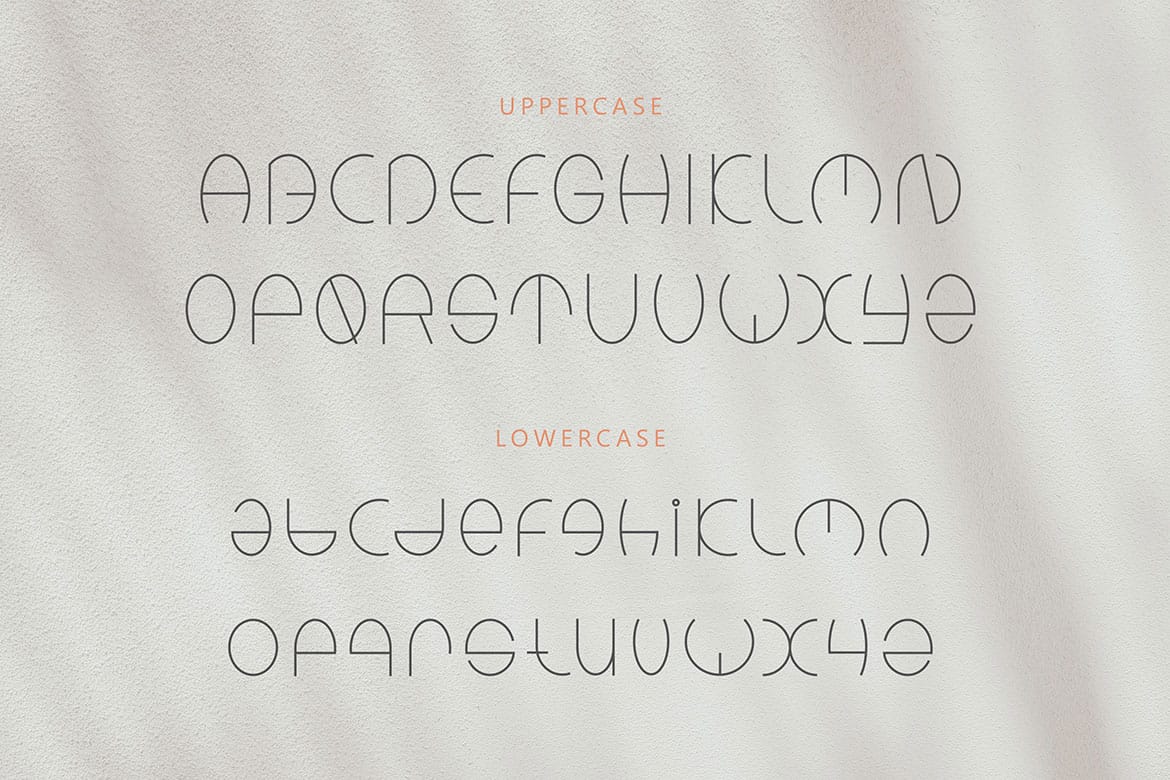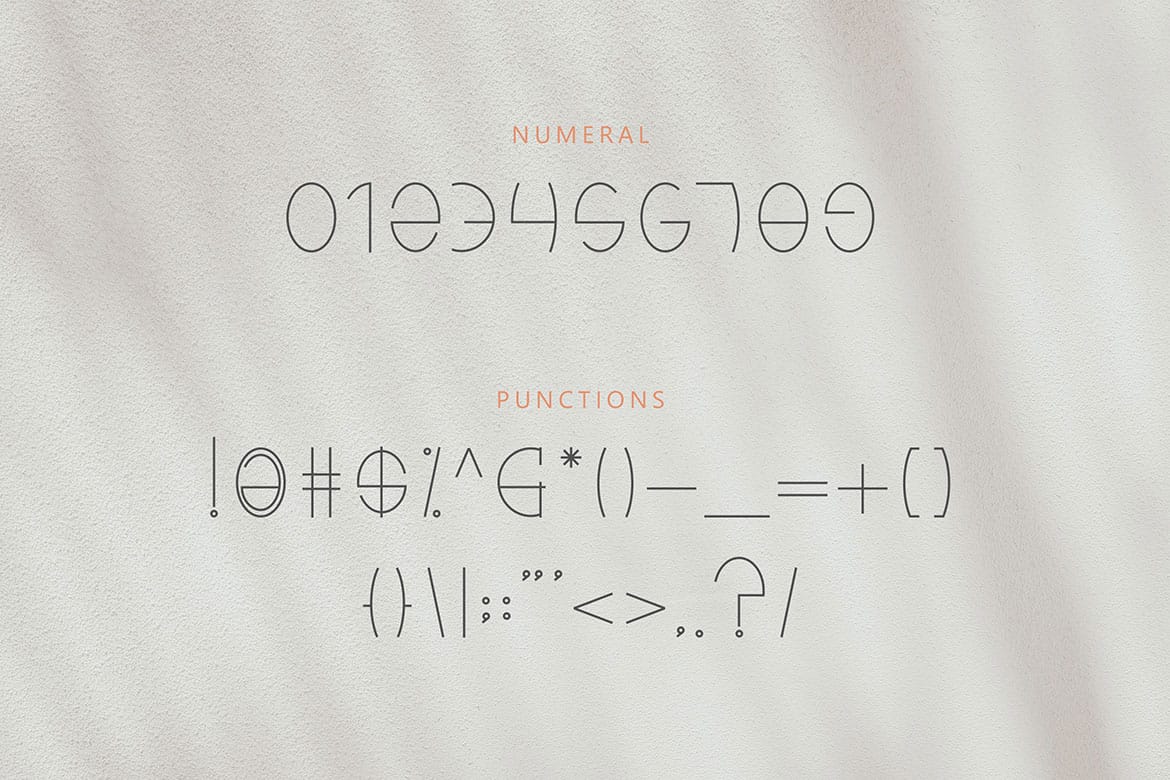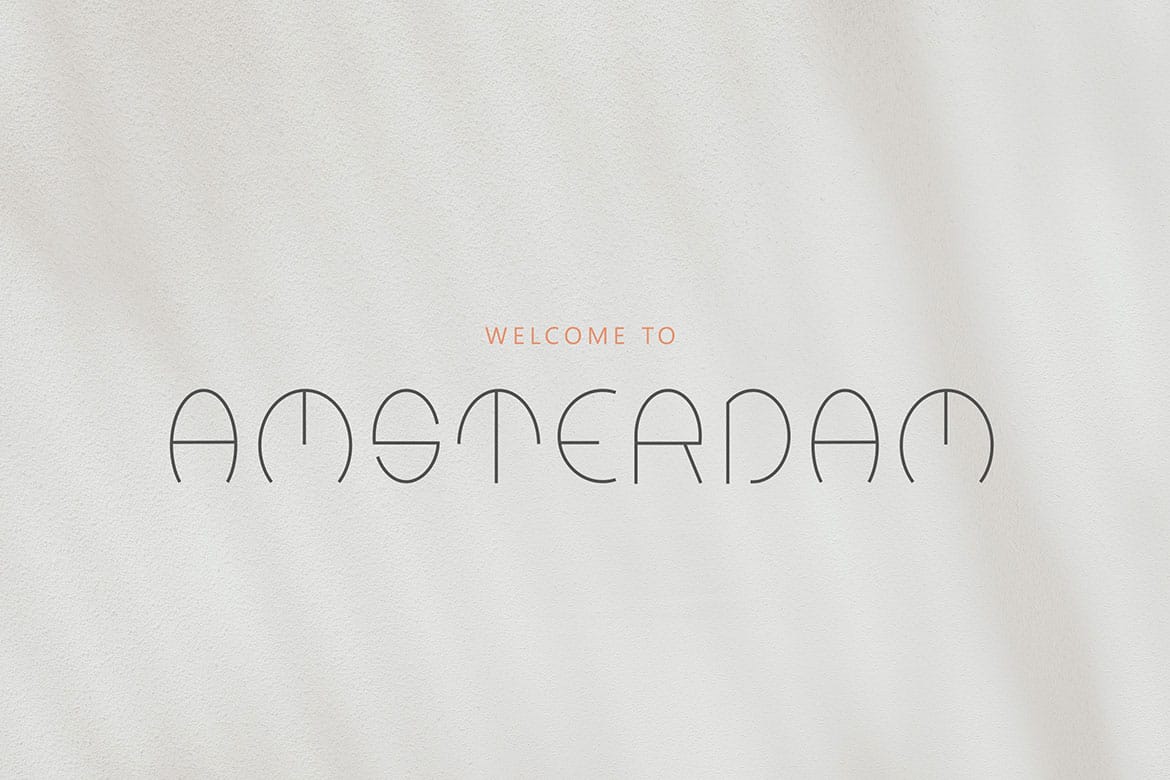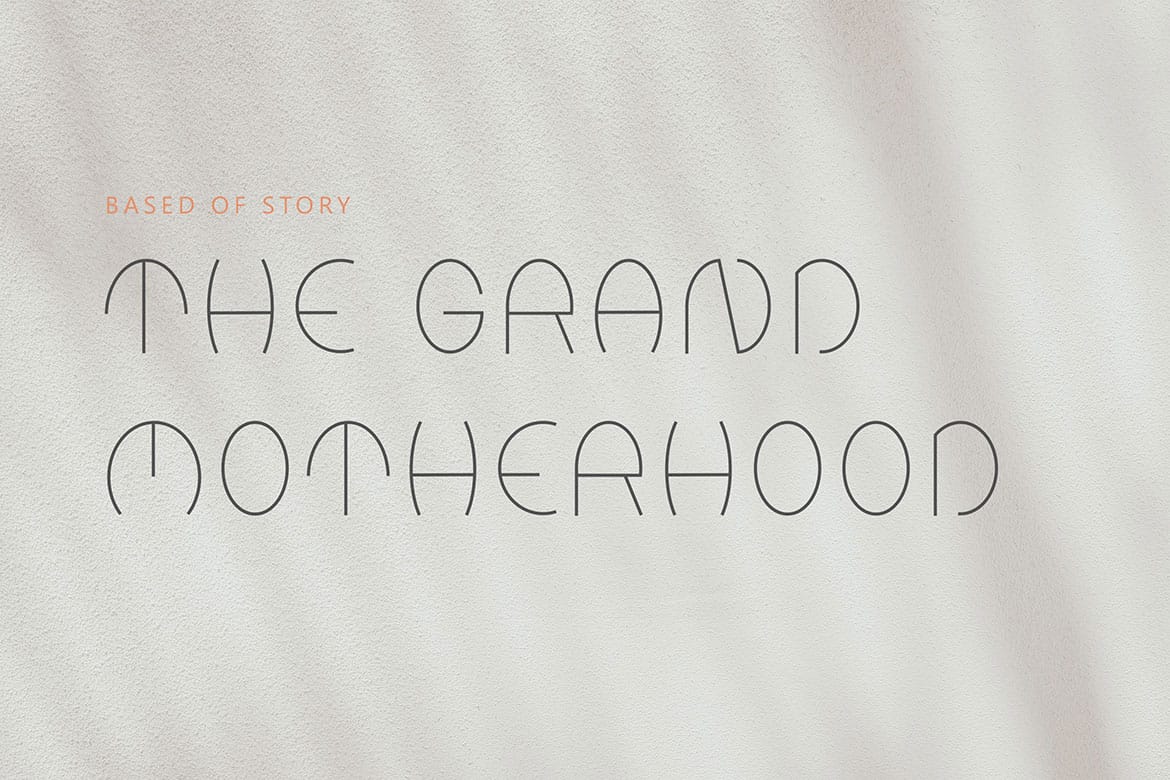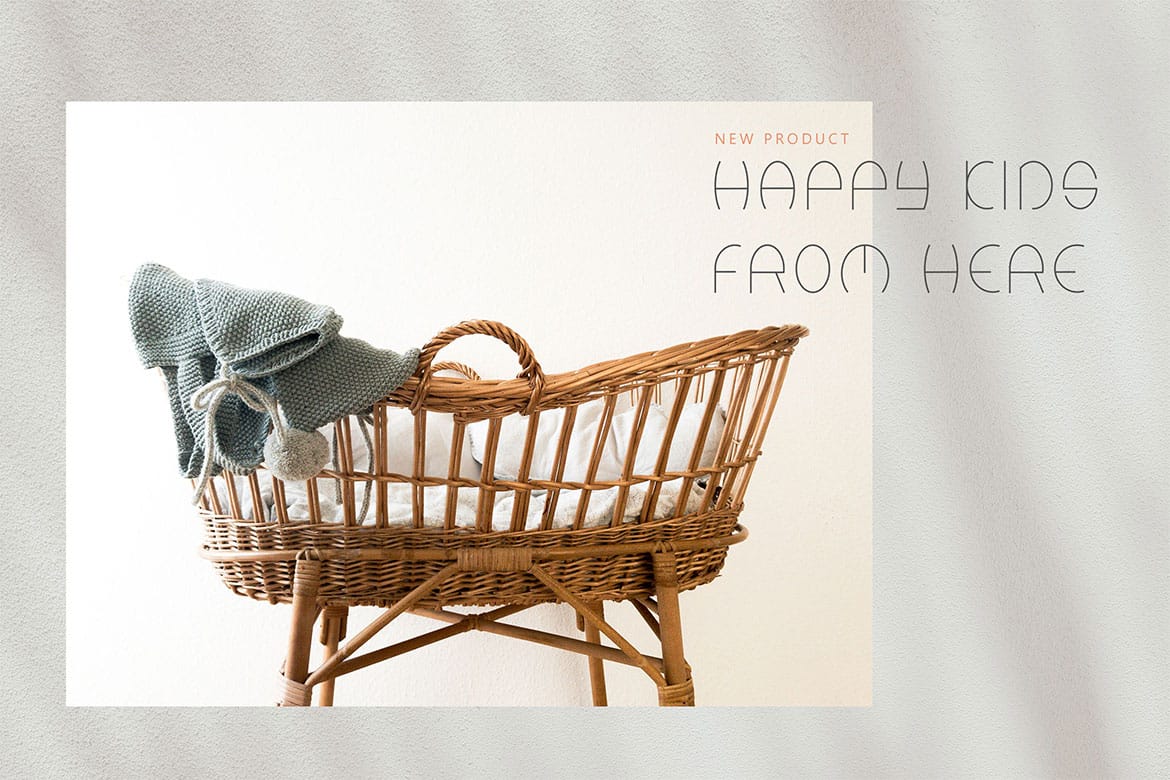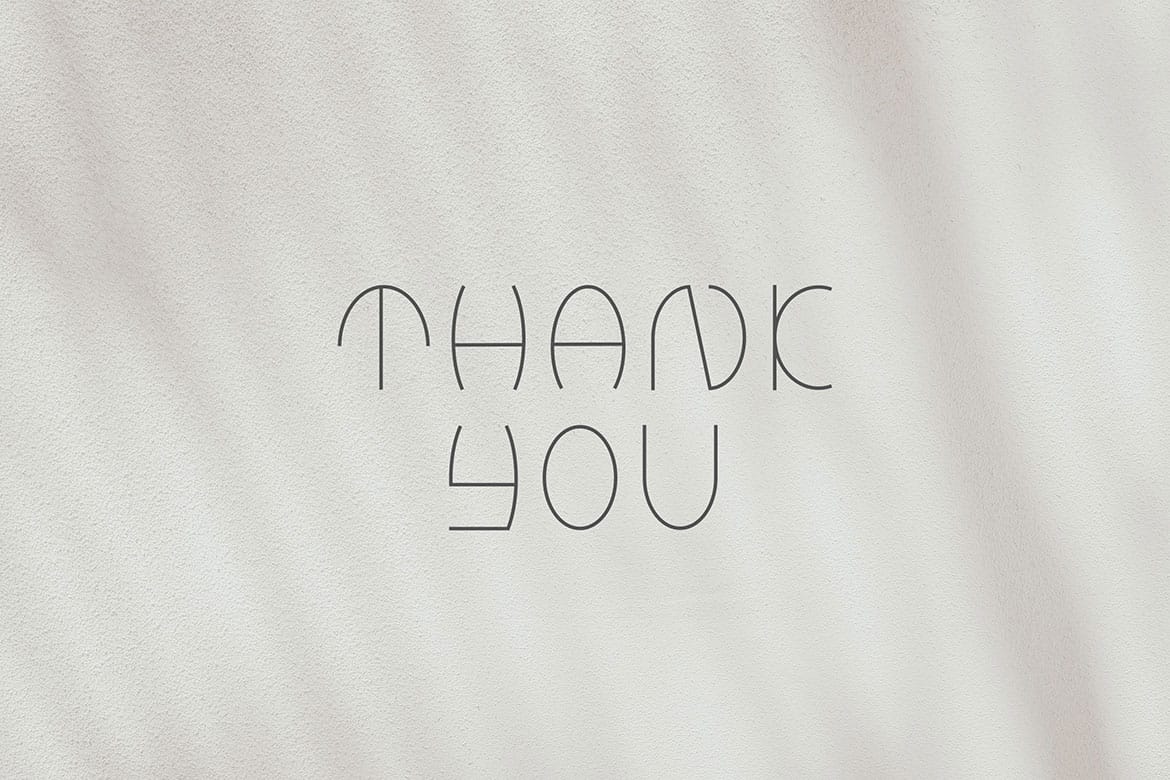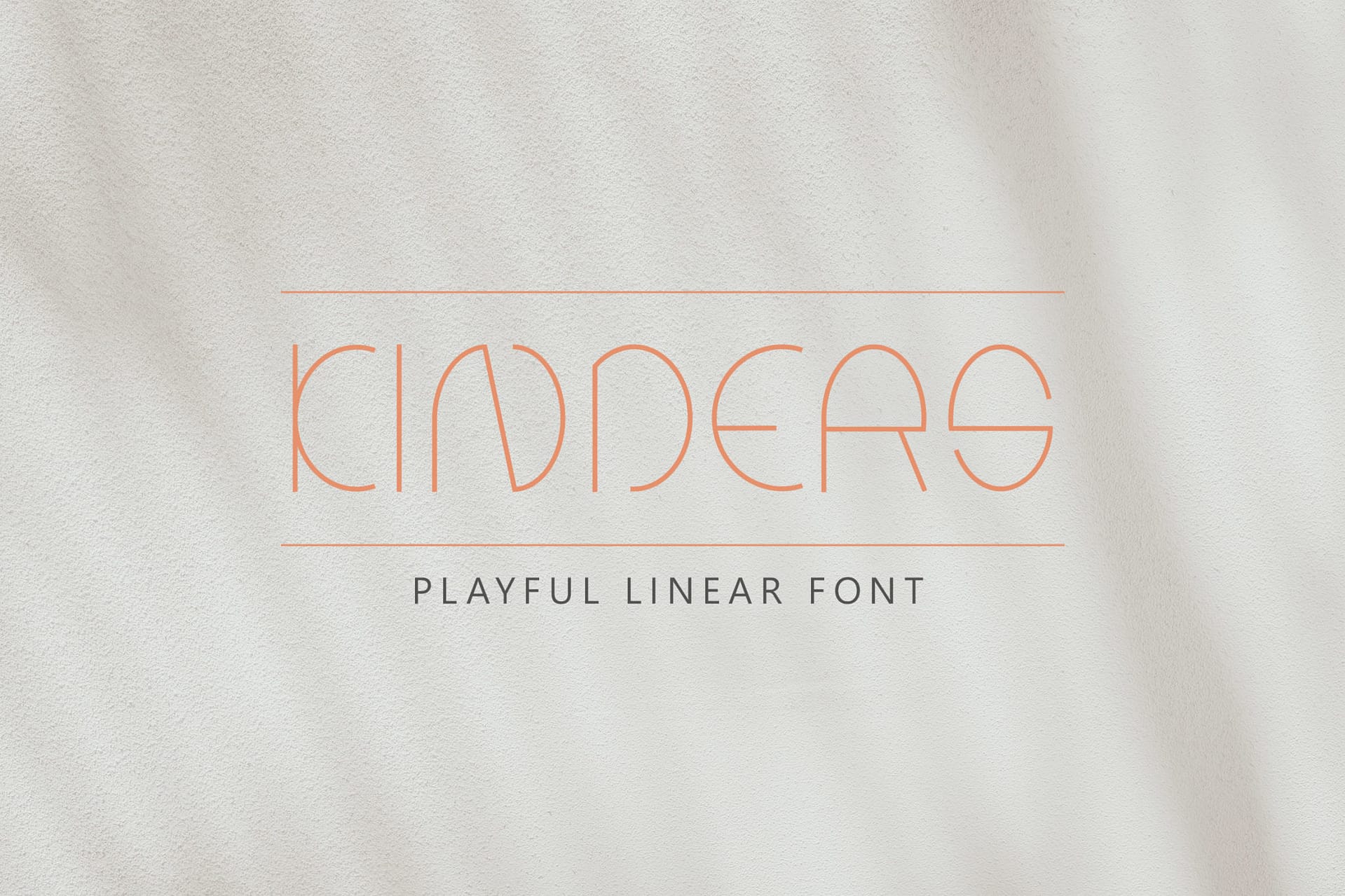
Kinders is a thin linear typeface with elegant in every single letter. This font looks modern, sci-fi, futuristic, future, readable, stylish, catchy and easy to use.
Kinders Font is the best choice for your professional design projects, including : logo, poster design, t-shirt, headline, flyer, cd cover album, quotes, business card, branding, magazines, social media, advertisements, product designs, or something that need modern or futuristic looks.
- Basic Latin A-Z and a-z
- Numbers
- Symbols